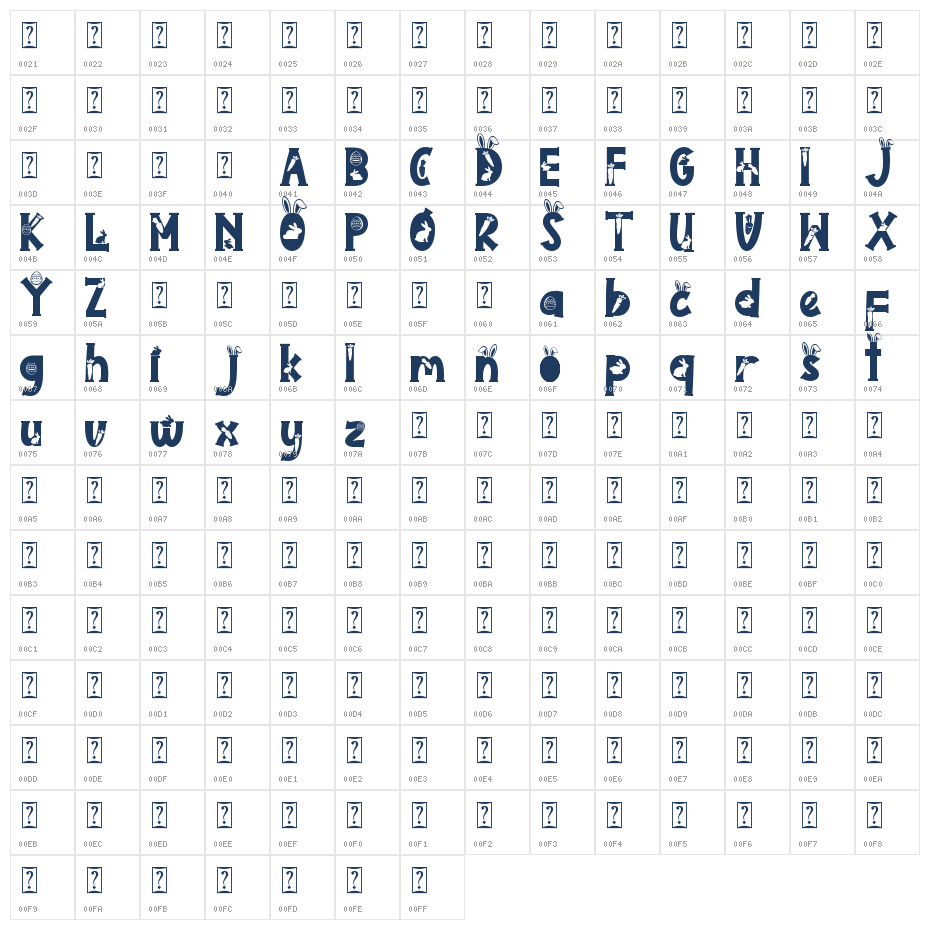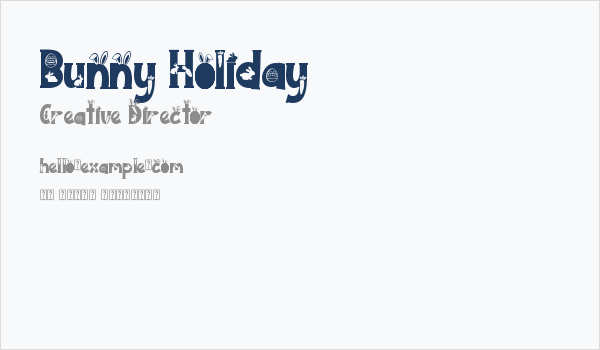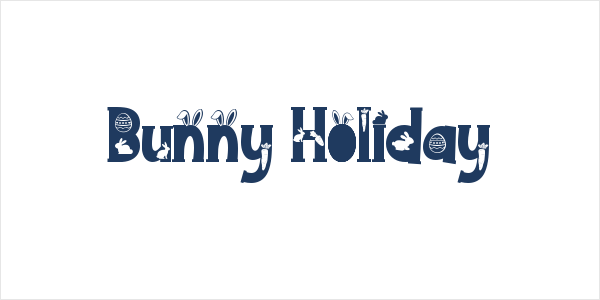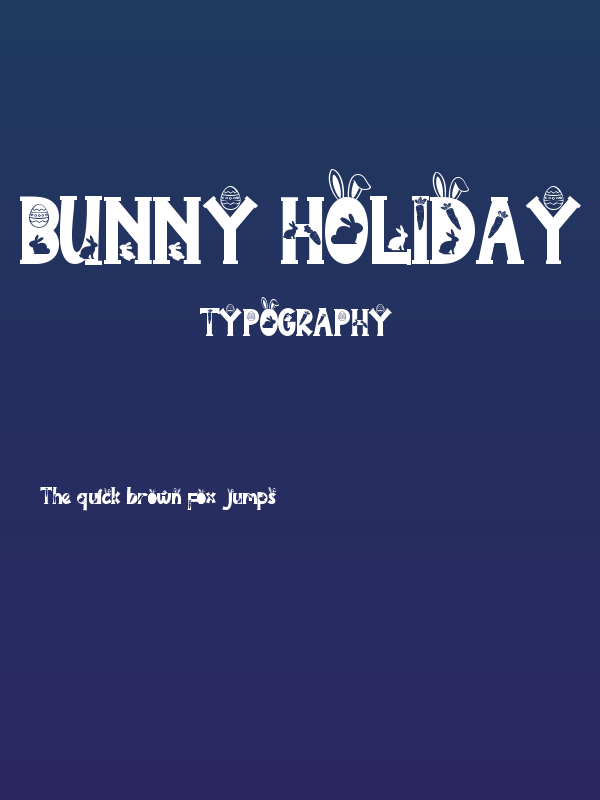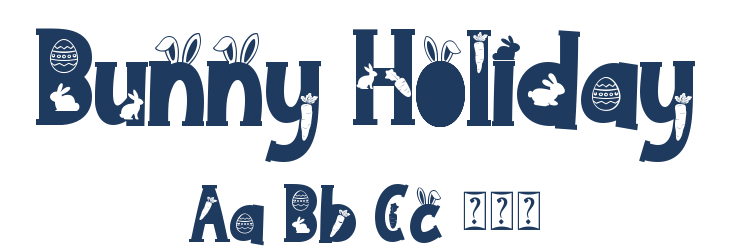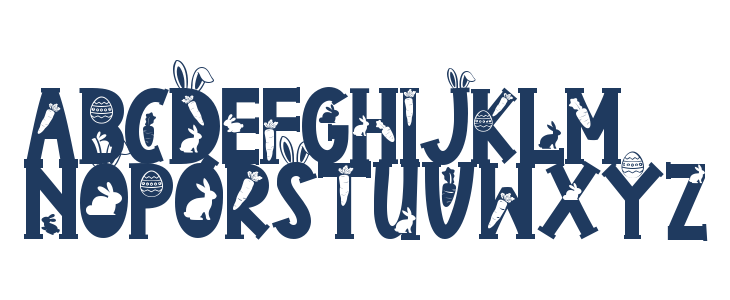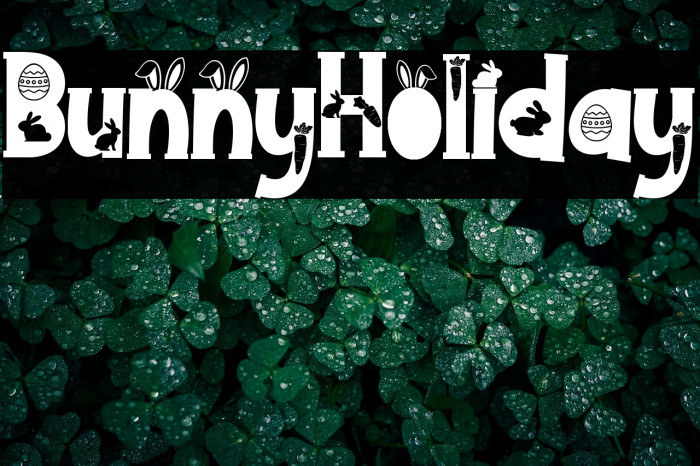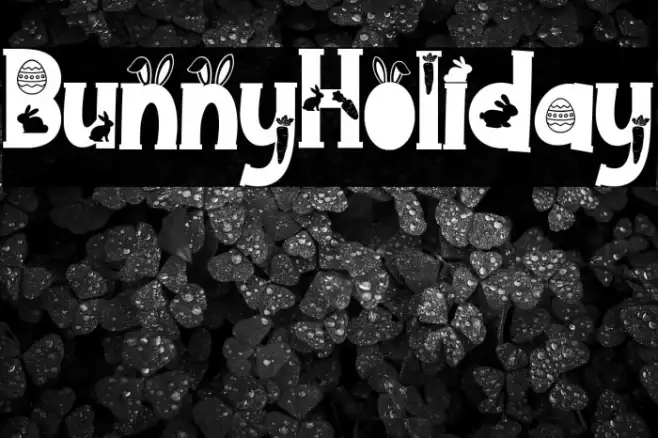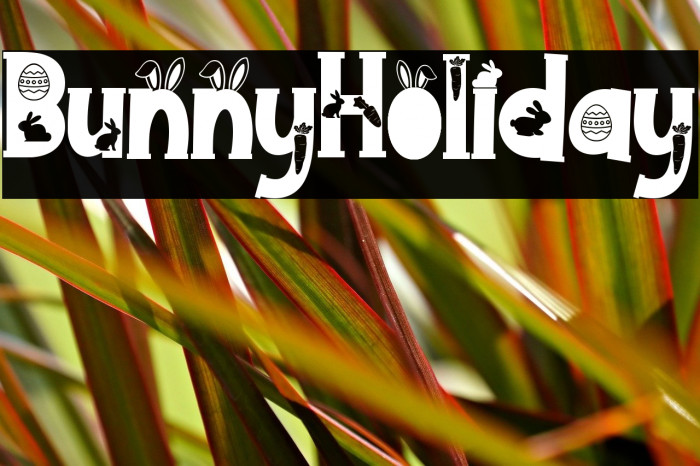
Bunny Holiday Font
Bunny Holiday Description
Playful, decorative font with bunny and egg motifs integrated into the letterforms, featuring a bold, whimsical style.
| Overall Style | Whimsical, Festive, Playful |
| Use Case | Headlines, Titles, Decorative text, Party invitations |